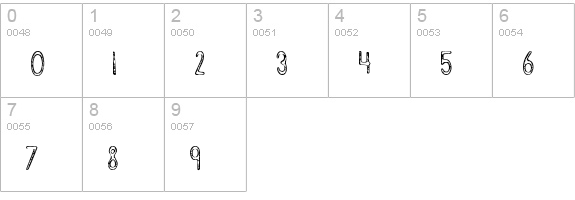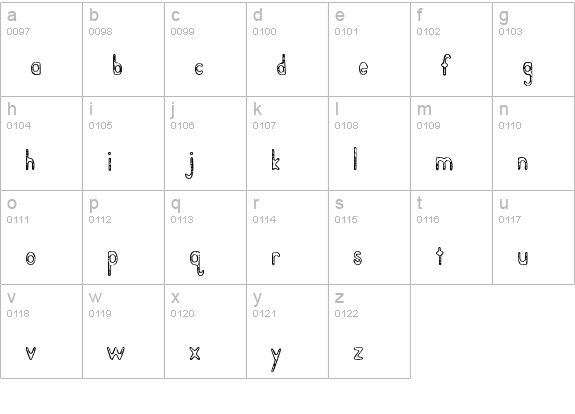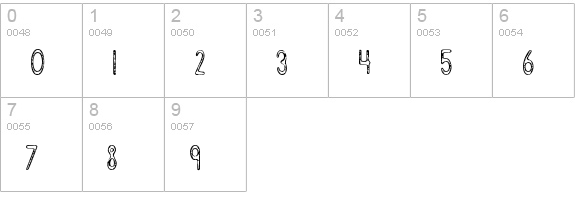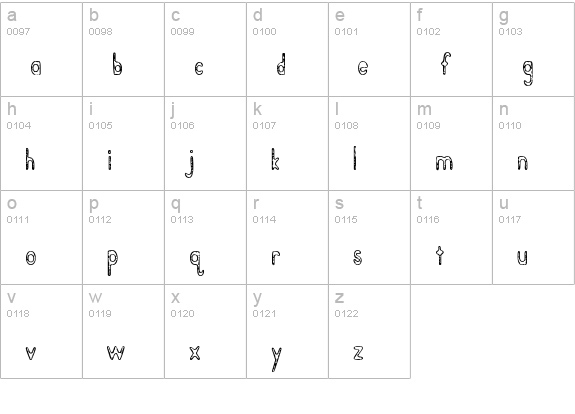
Introducing Bramalea Beauty font, a stunning and elegant typeface that exudes sophistication and charm. With its graceful curves and stylish flourishes, Bramalea Beauty is perfect for adding a touch of luxury to your designs. This font is versatile and can be used for a wide range of projects, from wedding invitations to branding materials. What's even better is that Bramalea Beauty is completely free to download at FontsMarket.com. So, whether you're a designer looking to elevate your creations or a business owner in need of a sophisticated font for your branding, Bramalea Beauty is the perfect choice. Download this exquisite font today and let its beauty enhance your projects effortlessly.